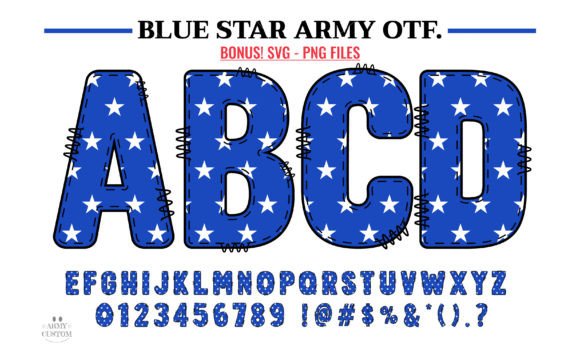
Discover the Spirit of America with Blue Star Army Font
A Perfect Fusion of Design and Patriotism
The Blue Star Army Font is a uniquely inspired American Font that embodies the grace and strength of the Stars and Stripes. This one-of-a-kind typeface channels the spirit of the American flag into each individual character, making it a perfect representation of courage, unity, and freedom. Whether you’re a designer, crafter, or creative hobbyist, this font is sure to ignite your patriotic side.
The Good ✨
- ✅ Unique and authentic American design
- ✅ Perfect for patriotic-themed projects, from Independence Day celebrations to Memorial Day tributes
- ✅ OpenType features and glyphs for added versatility
The Not-So-Good 🤔
The Story Behind Blue Star Army Font
The Blue Star Army Font was designed with the intention of capturing the essence of American patriotism. The designer aimed to create a font that would not only represent the country’s values but also evoke a sense of nostalgia and pride. The result is a unique and authentic typeface that embodies the spirit of America.